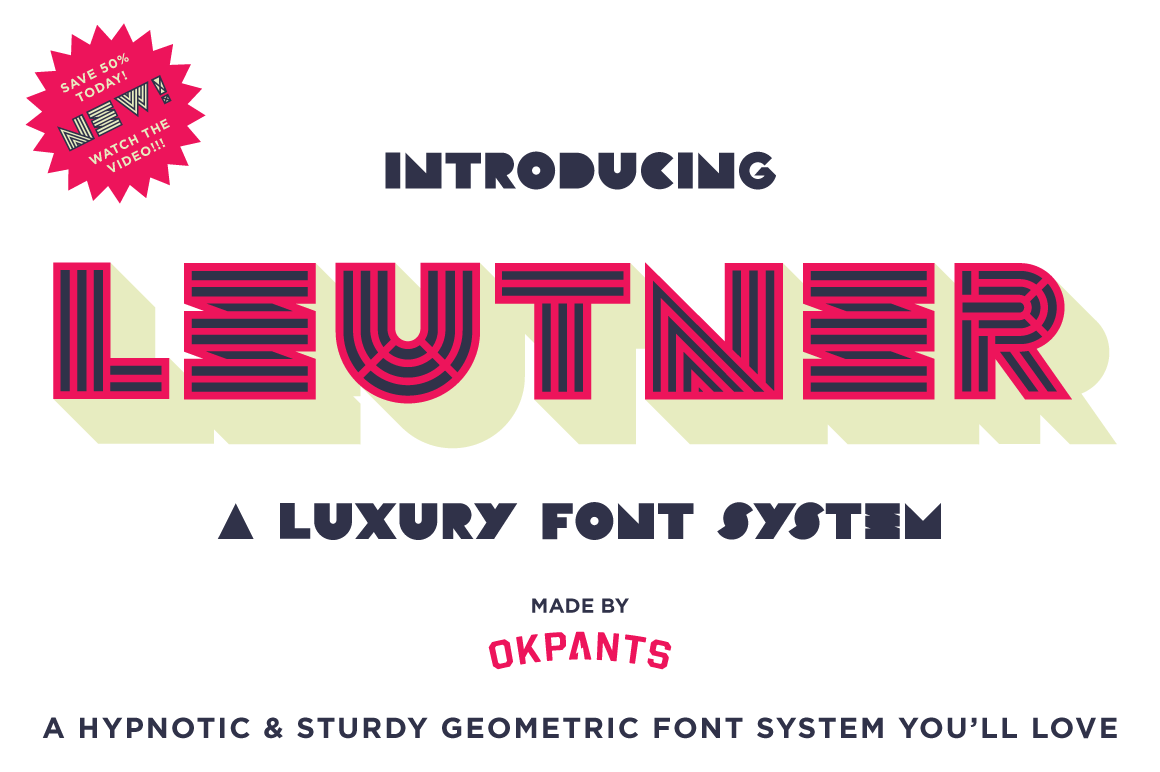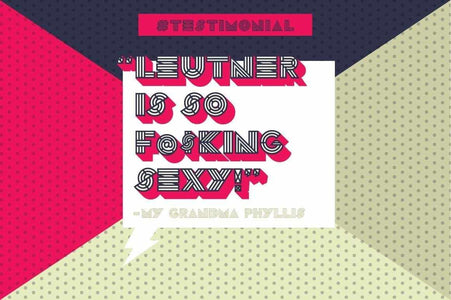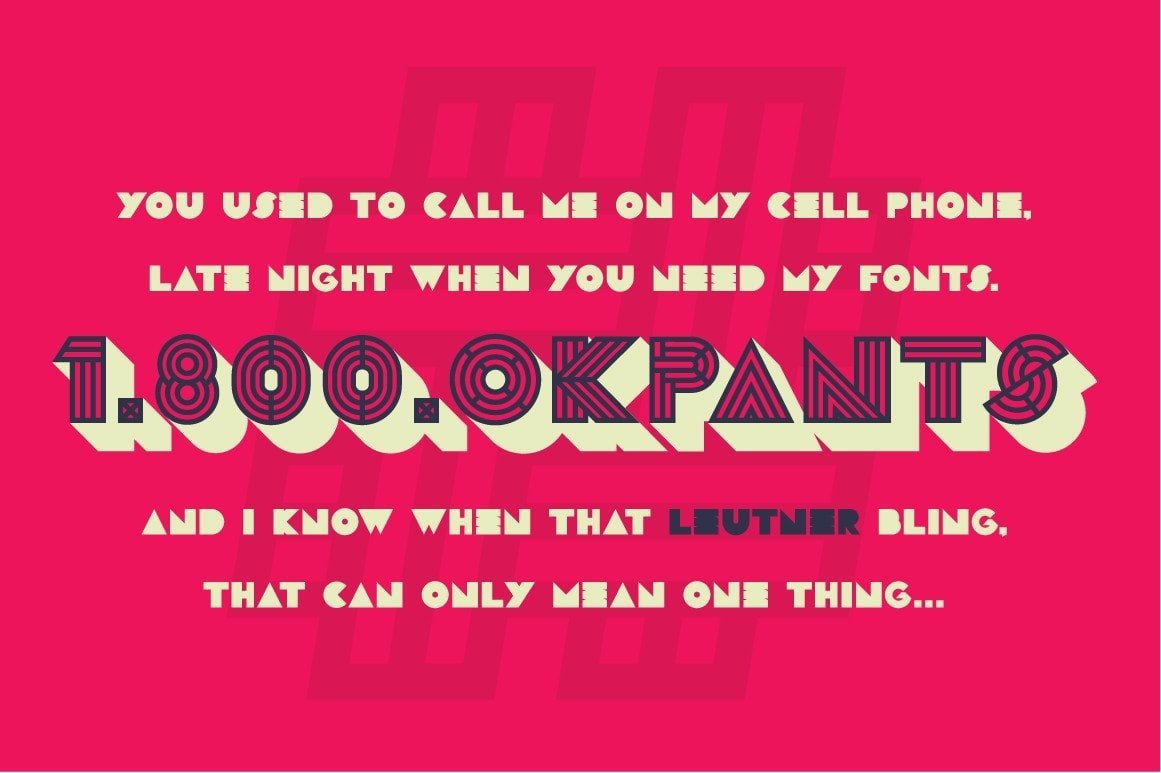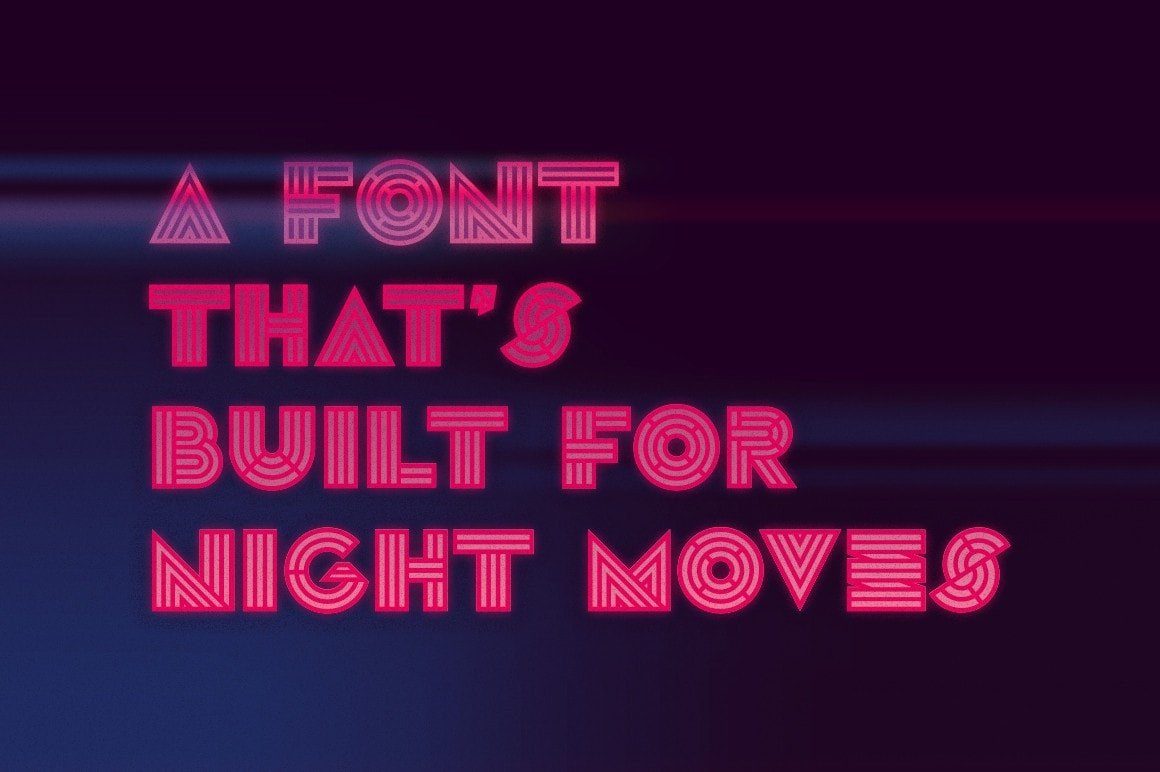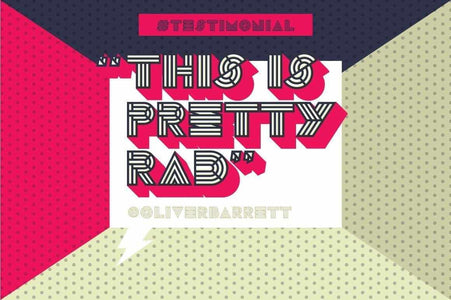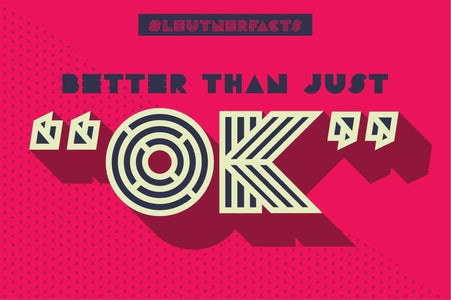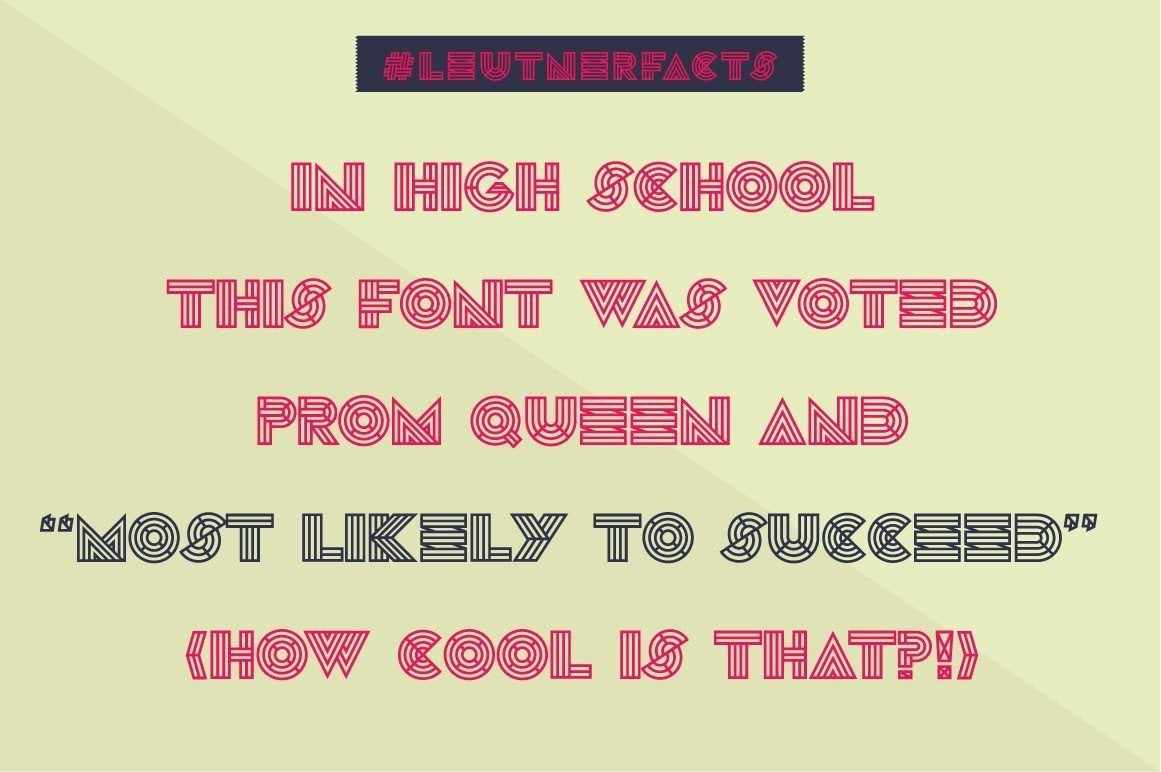
Leutner Font
A Sturdy Layered Geometric Font That Pays Homage to its 20th Century Roots (Without Being a Cheesy Tribute)
Named after the dining hall that Aaron would sneak into while attending art school, Leutner is an eyeball-grabbing, hypnotic and sturdy geometric font inspired by the late 20th century (while still maintaining its own unique personality).
It's also a four typeface, layered type system. So you can create eye-catching typography in seconds.
• Layered type system designed by Aaron Sechrist of okPANTS, a small independent design studio in Cleveland, Ohio.
• Layers include Main, Fill, Base and 3D (so you can quickly adapt Leutner to your project).
What is Leutner?
Named after the dining hall that Aaron would sneak into while attending art school, Leutner is an eyeball-grabbing, hypnotic and sturdy geometric font inspired by the late 20th century (while still maintaining its own unique personality).
It's also a four typeface, layered type system. So you can create eye-catching typography in seconds.